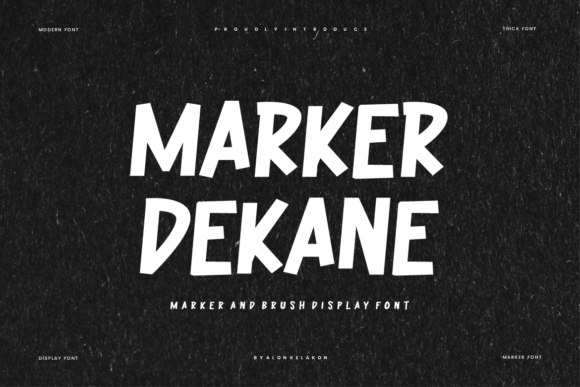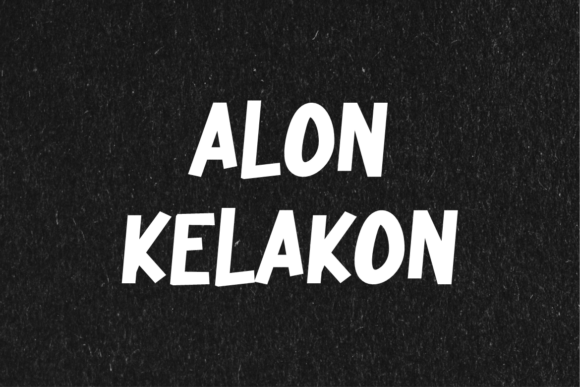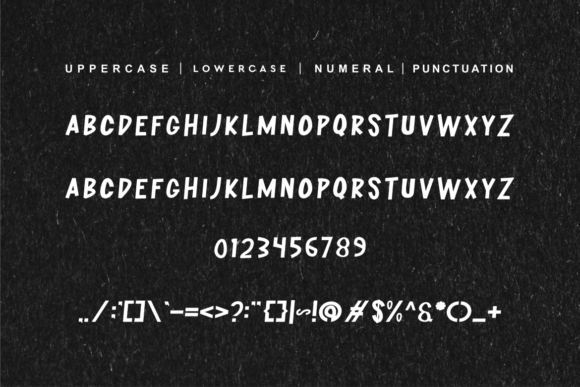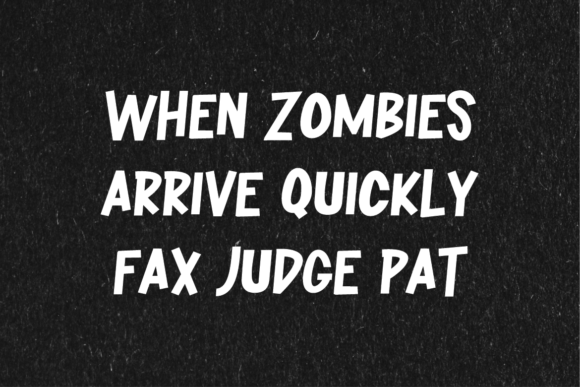
Marker Dekane Font: A Bold Display Font for Creative DIY Projects
About the Marker Dekane Font
Let us introduce you to Marker Dekane Font, where timeless design meets modern craftsmanship. Marker Dekane is a sweet and friendly handwritten font. Its natural and unique style makes it incredibly fitting to a large pool of designs. The only limit is your imagination!
Marker Dekane’s friendly, informal style is ideal for projects requiring a personal touch. It excels in headlines, short-form text on packaging, and social media graphics. Consider it for branding aimed at a younger demographic or businesses emphasizing warmth and approachability. Avoid using it for body text or lengthy paragraphs; its handwritten nature makes extended reading difficult.
Its cheerful personality pairs well with clean sans-serif fonts like Open Sans for a balanced contrast or a geometric sans-serif like Futura for a modern feel. For a more playful approach, consider pairing it with a quirky display font. Avoid pairing it with overly serious or formal serif fonts.
Marker Dekane’s core personality is undeniably friendly and approachable, conveying a sense of youthful energy and optimism. This makes it an excellent choice for projects requiring a lighthearted, accessible feel.
Marker Dekane Font Usage Examples
Marker Dekane Font Example